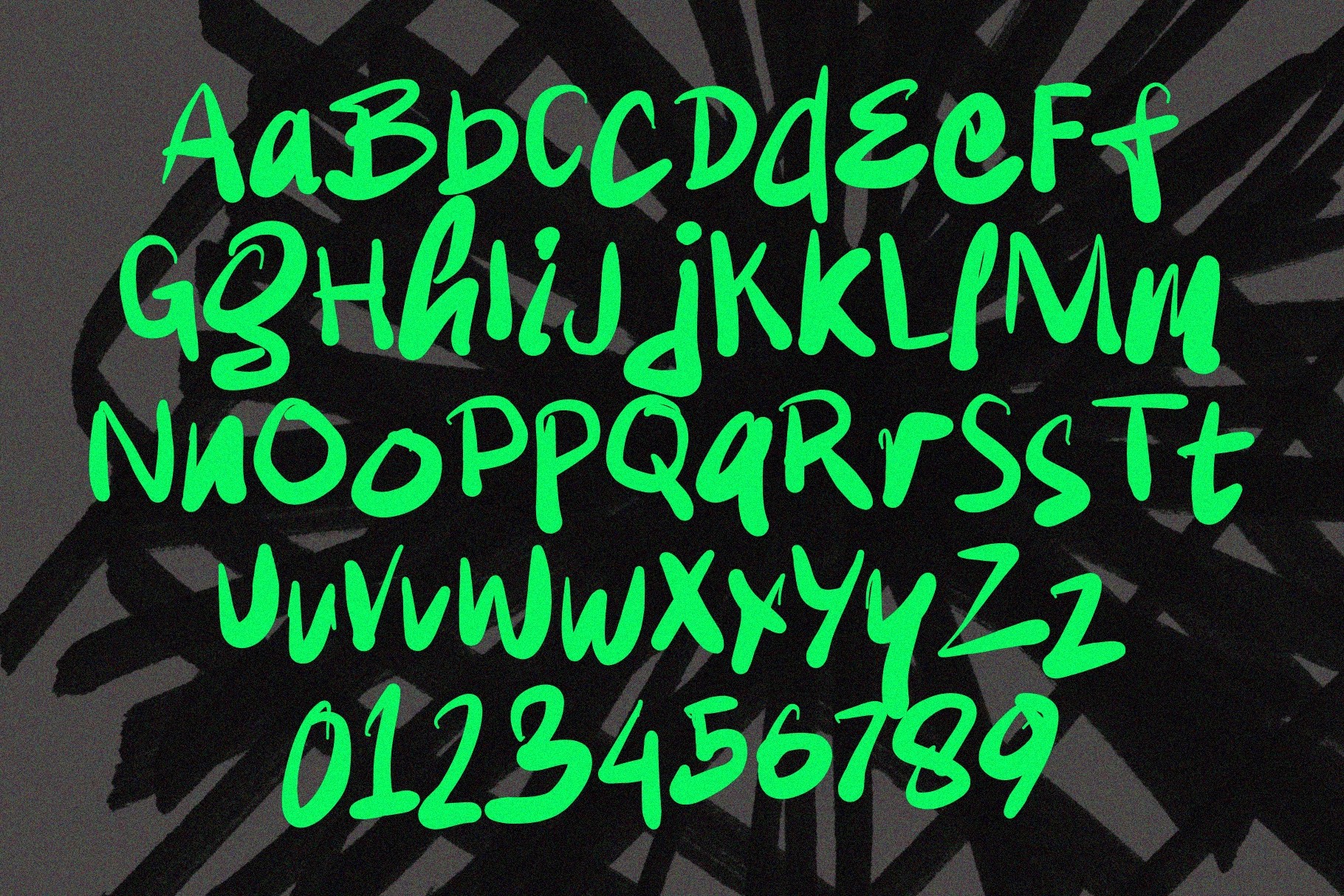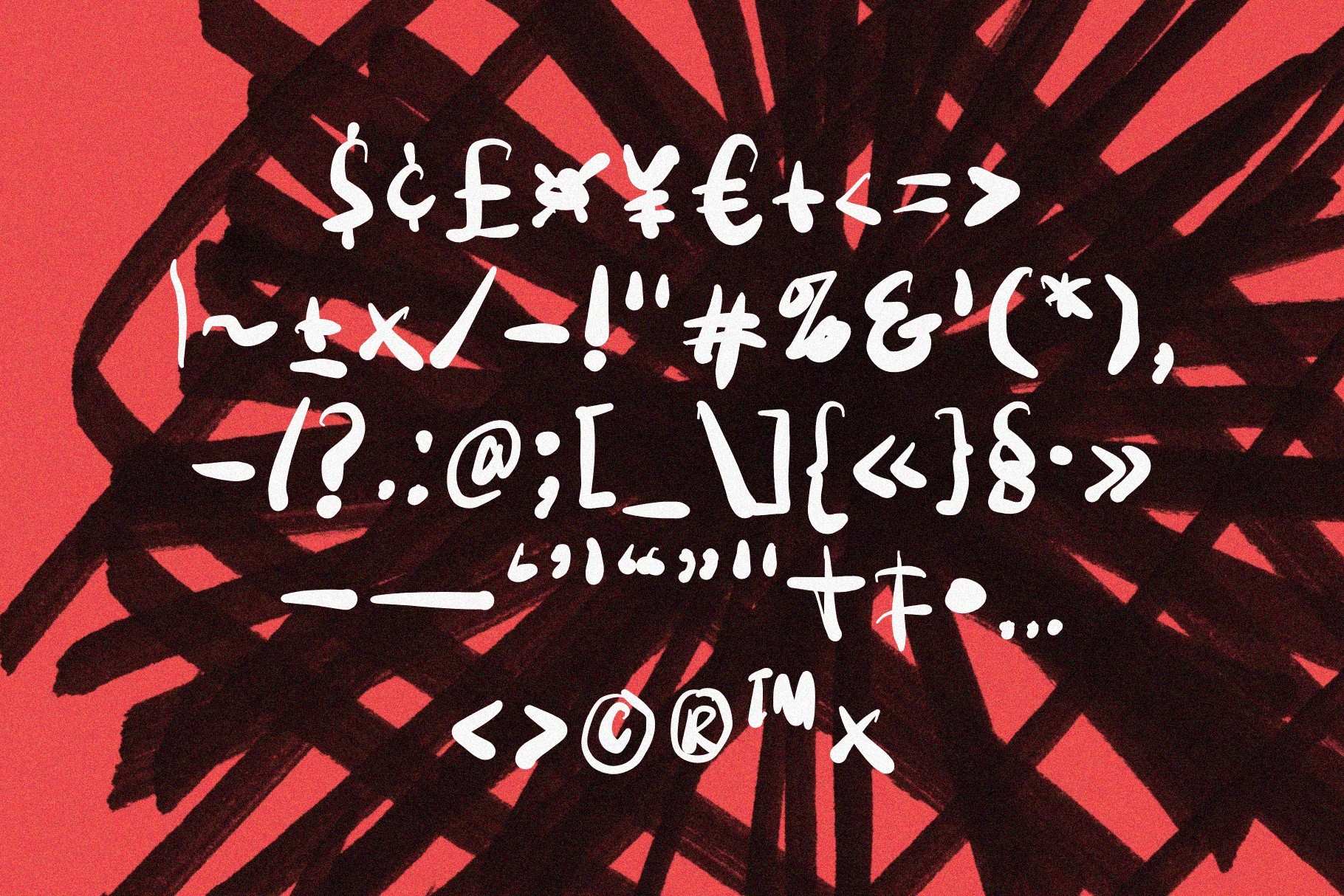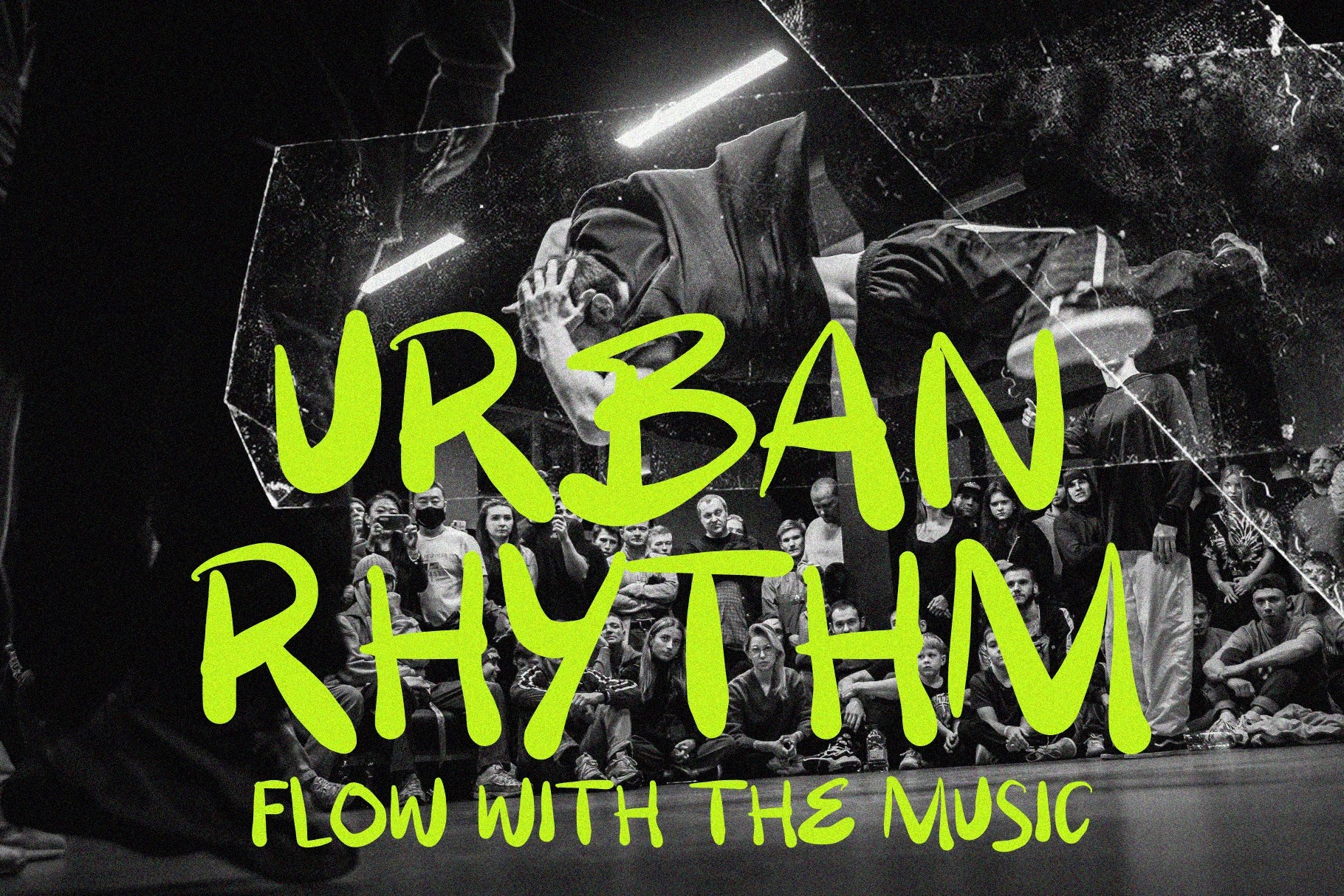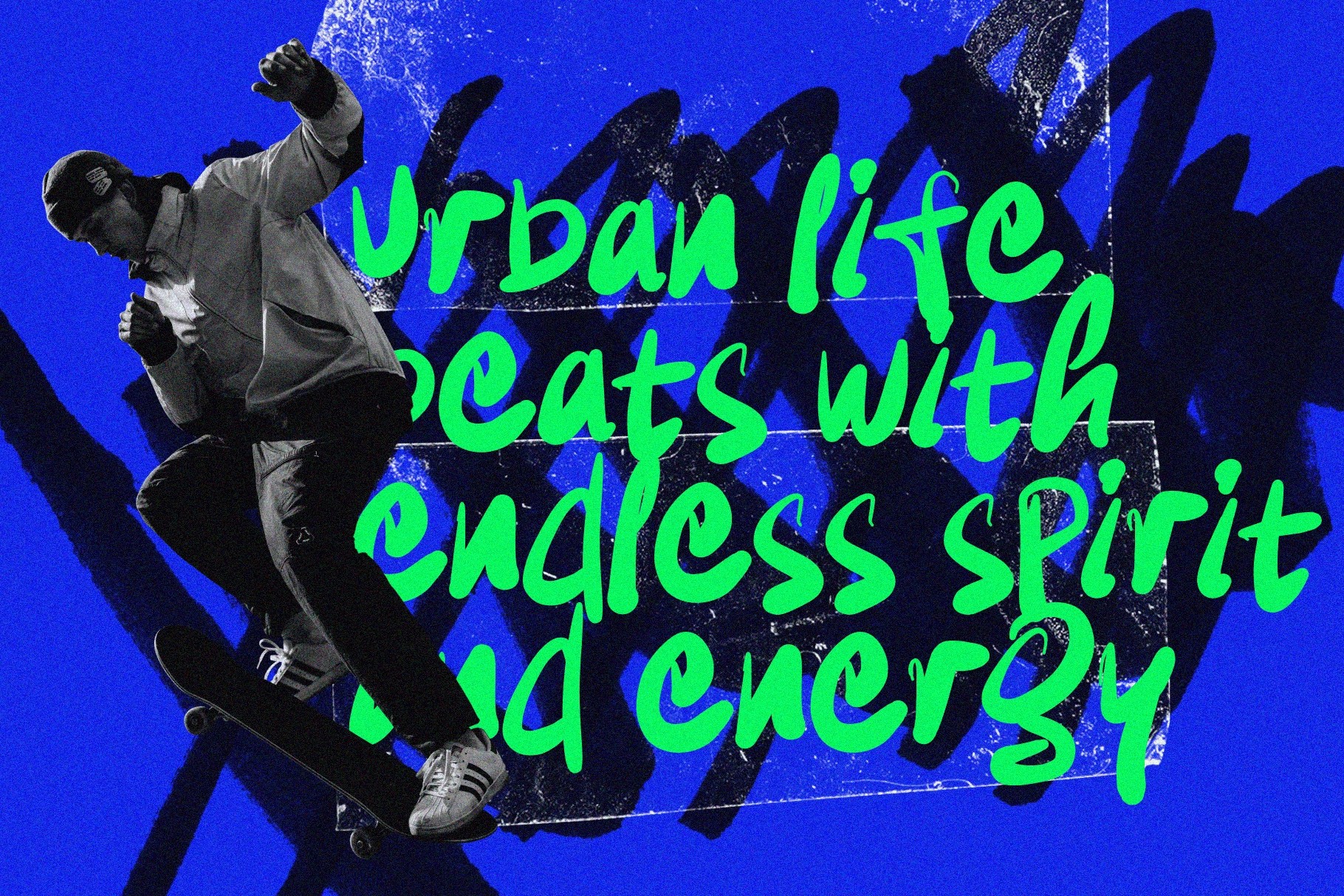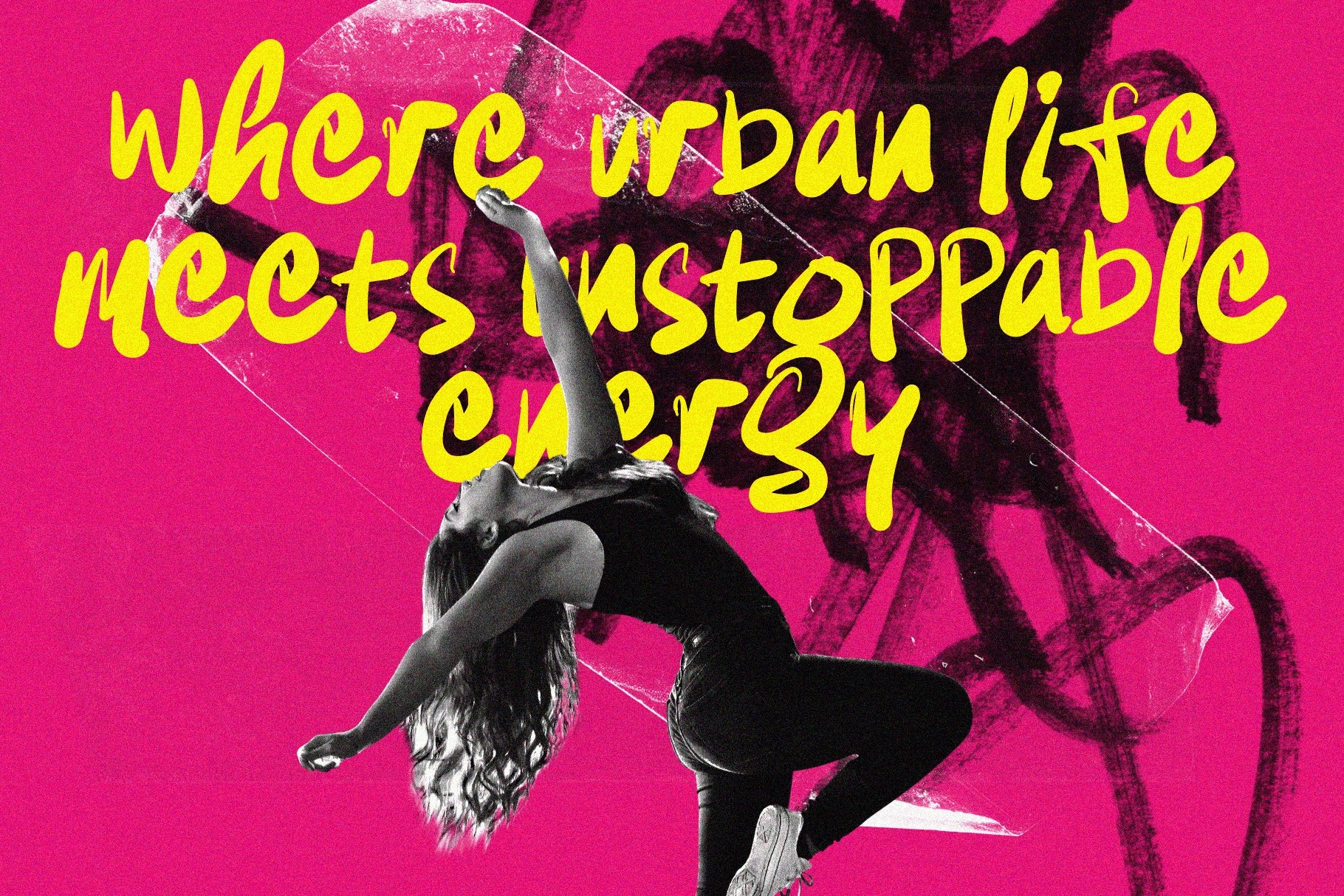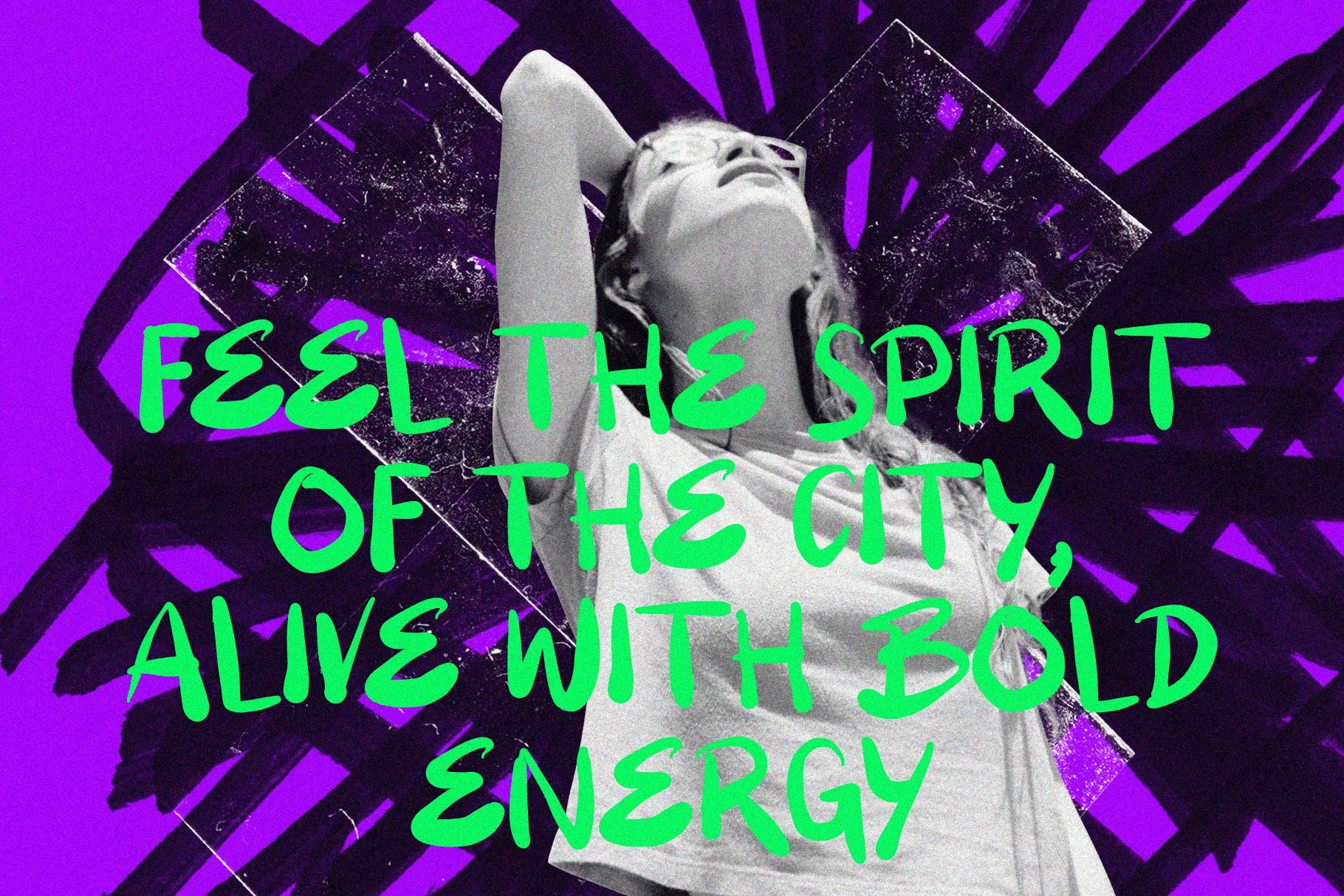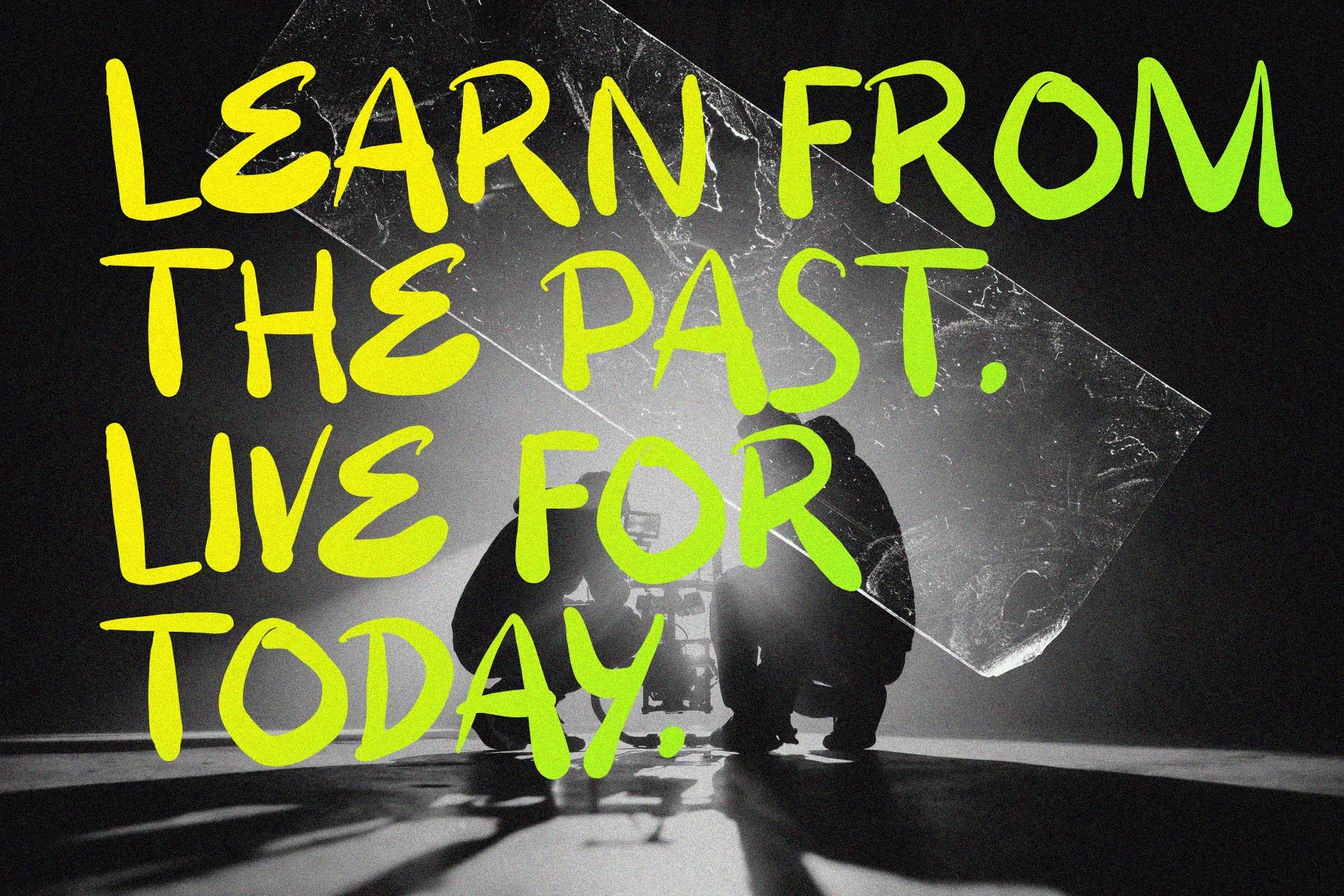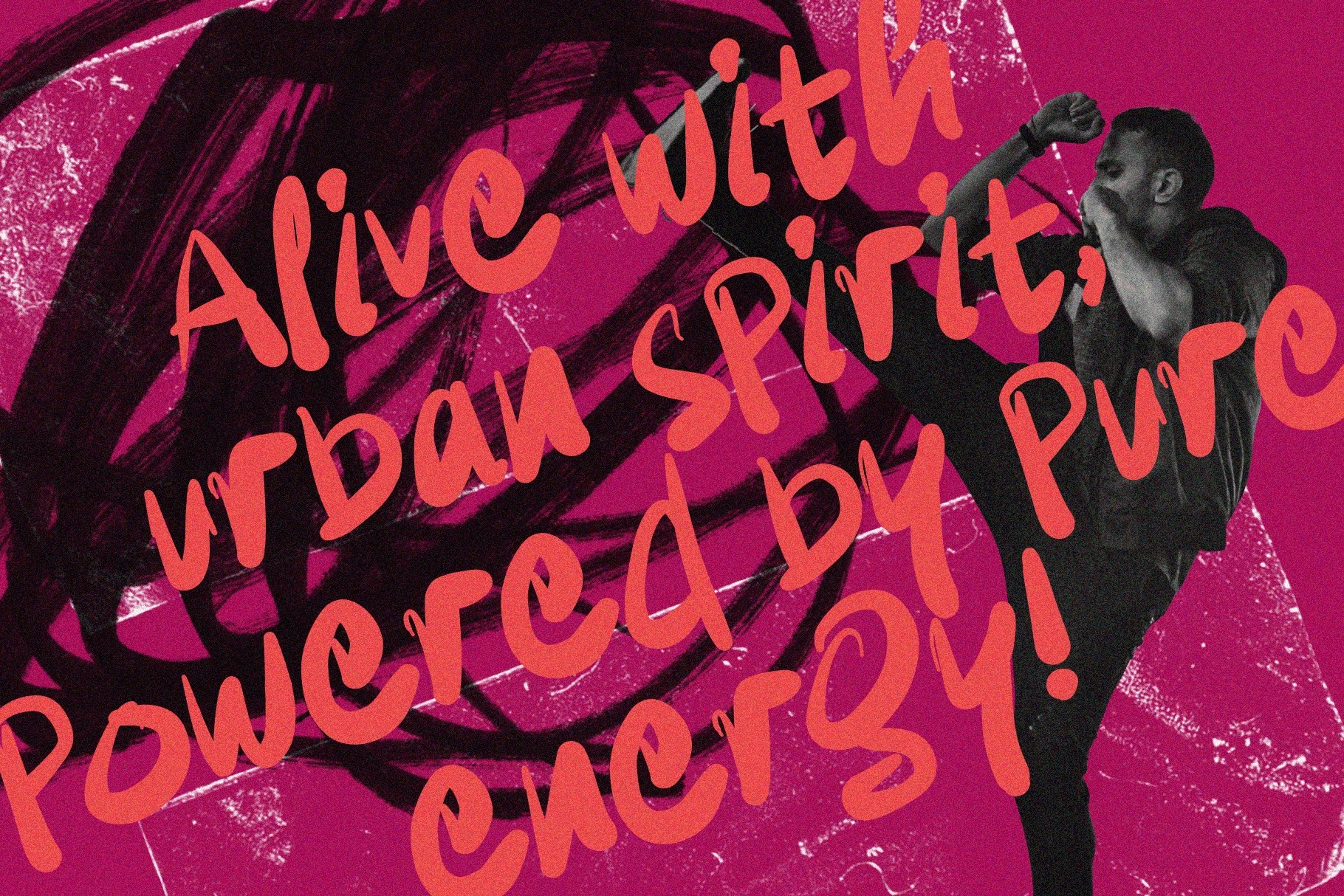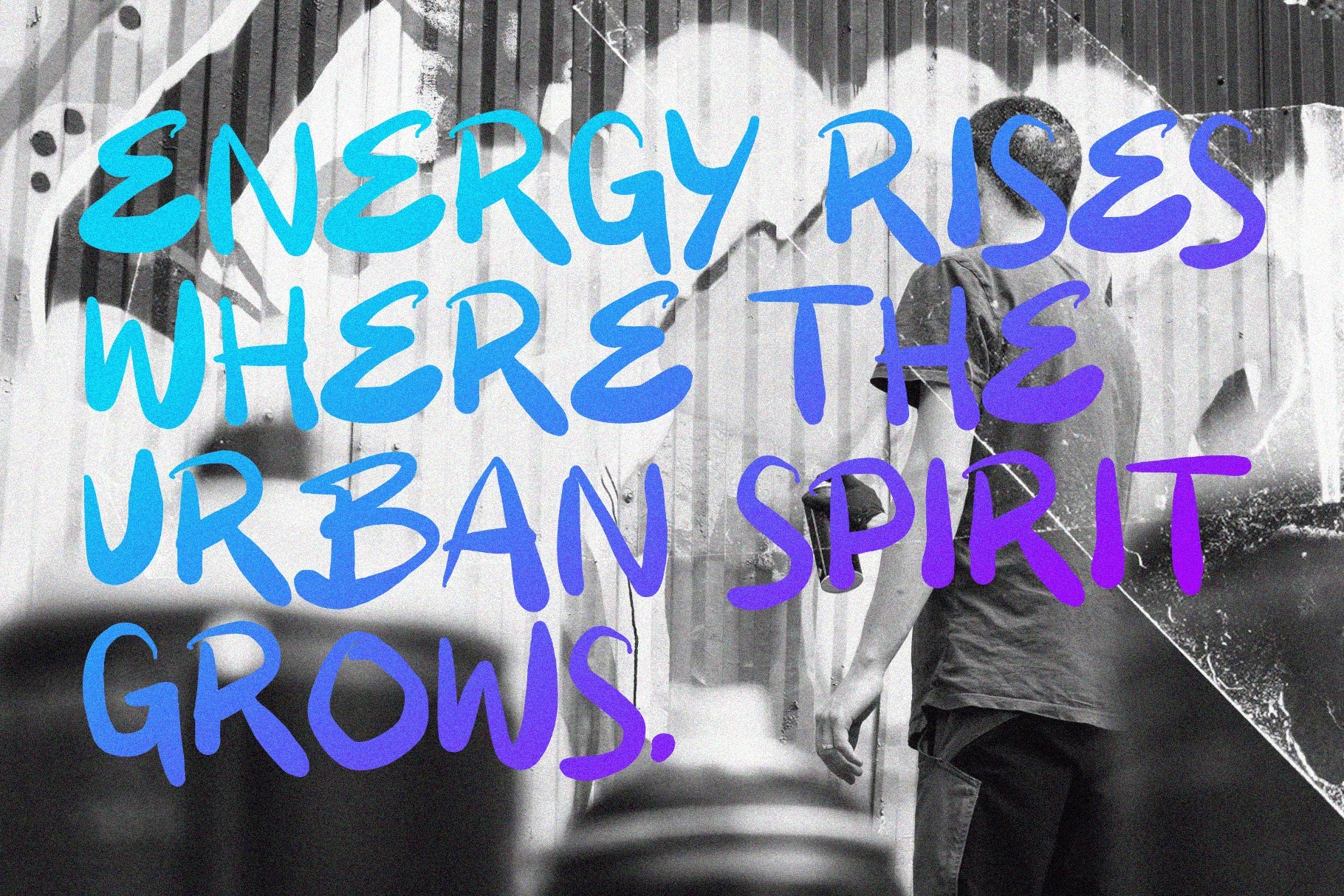
BIGES — Urban Raw Brush Font
Biges
Biges is a brush font with large gestures, uneven pressure, and a raw marker rhythm that looks made for late-night posters and loud visual systems. The letters are loose but readable, with thick swashes, sharp turns, and street-style character packed into every line.
Biges works well for music covers, dance battle posters, festival graphics, streetwear branding, YouTube thumbnails, album artwork, skate shop promos, sports headlines, social media campaigns, event flyers, creative studio identities, and editorial titles that need punch without getting too polished.
- Punctuation marks
- Symbol set
- Currency symbols